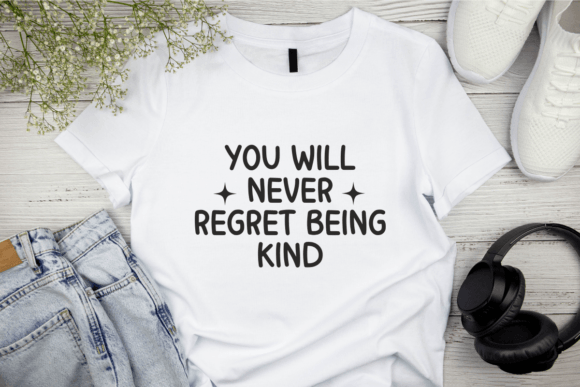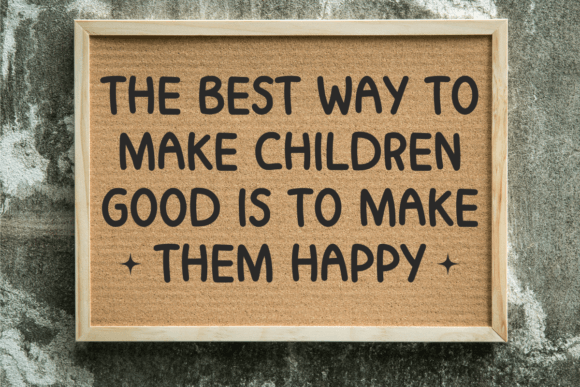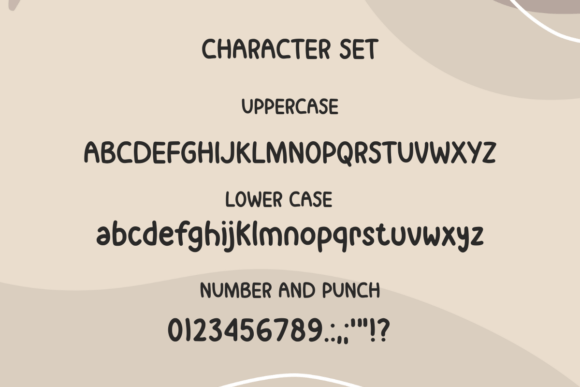
The Joy of Creating with Kids Kind Font
Remember that moment when your child first scribbled their name with crayons on a piece of paper? It was like witnessing pure magic. The way the lines danced across the page, the imperfections, and the sheer creativity that burst forth from their little hands – it was a moment of pure joy. As designers, we strive to capture that same essence in our work, don’t we?
That’s where the Kids Kind Font comes in – a cute and playful handwritten font that’s perfect for bringing a touch of whimsy to your creative projects. Whether you’re designing a children’s book, a party invitation, or a social media graphic, this font is sure to add a dash of fun and personality to your work. Its value lies in its ability to evoke a sense of childlike wonder, making it a valuable asset for designers looking to create engaging and memorable content.
Kids Kind Font Key Features
- Unique Characteristics: Designed specifically for children, the font is playful, colorful, and easy to read. It’s perfect for educational materials, children’s books, and websites.
Designer Review: Kids Kind Font
As a designer, I was excited to dive into the Kids Kind Font and see if it lived up to its name. Here’s my honest take.
- Playful and approachable feel: The font has a wonderful, childlike quality that’s perfect for projects targeting young audiences.
- Variety of weights and styles: Kids Kind Font offers a range of weights, from light to bold, as well as a few different style options, giving designers plenty of flexibility.
- Clear and readable: Despite its playful feel, the font is still clear and easy to read, making it suitable for body text as well as headlines.
- Not ideal for formal or professional projects: While the font is perfect for kid-focused projects, it may not be the best choice for more formal or professional work.
- Limited language support: I noticed that the font doesn’t support as many languages as some other fonts I’ve used.
Kids Kind Font is a fun and playful font that’s perfect for projects targeting young audiences. While it may not be suitable for all types of projects, it’s a great choice for designers looking to add a touch of whimsy and approachability to their work.
Tips for Getting the Most Out of Kids Kind Font
Here are some tips for getting the most out of Kids Kind Font:
– Use it in conjunction with colorful illustrations to create engaging and fun designs.
– Experiment with different font sizes and colors to create visual interest.
– Use it to create custom titles, headings, and body text for your designs.
Common Use Cases for Kids Kind Font
Some common use cases for Kids Kind Font include:
– Children’s book covers and illustrations
– Educational materials and worksheets
– Party invitations and